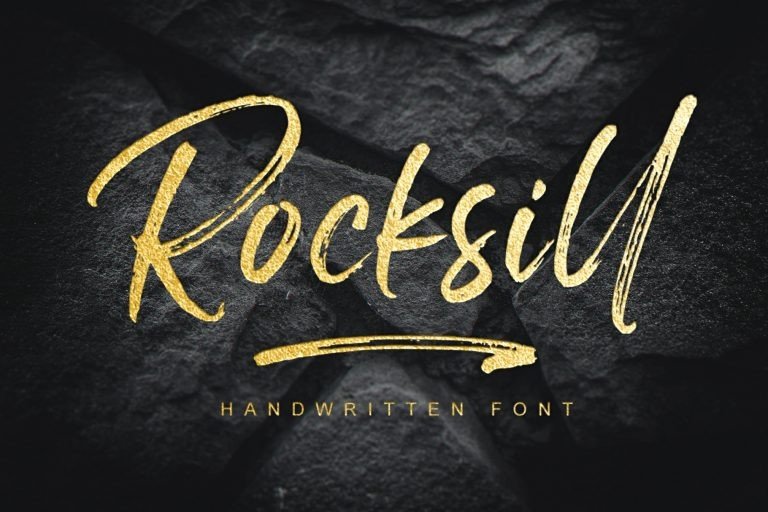
Rocksill Font
Rocksill Brush Font, designed by alphArtype is a hand-drawn brush typeface with a textured and natural style, this font is great for your next creative projects such as watermark on photography, album cover, logo, business card, and many other design project.
Rocksill comes with uppercase letters, lowercase letters, alternate lowercase letter, numbers and punctuation.